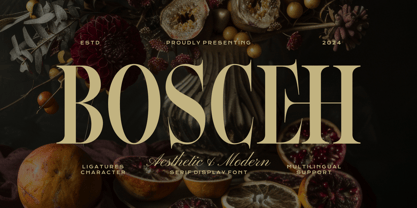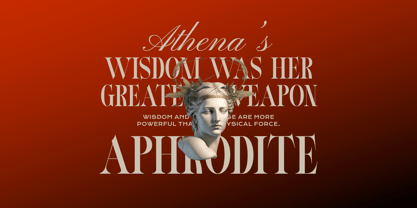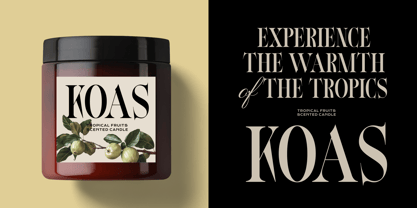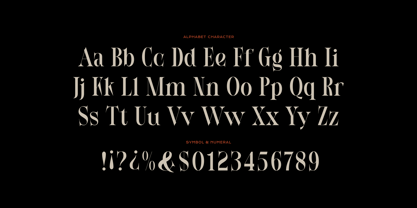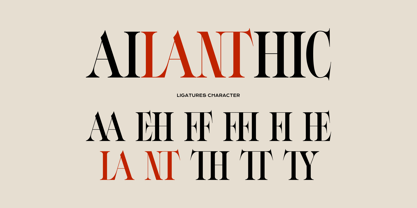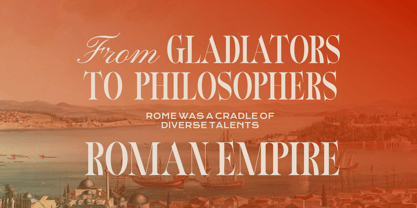
Bosceh
by Imoodev
The Bosceh Font Family was designed by Aulia Savira Putri and published by Imoodev. Bosceh contains 1 styles. More about this family
Bosceh is an aesthetic premium serif font characterized by sharp serifs with tapered ends, which lend a contemporary and luxurious feel. It features a significant contrast between the thick and thin parts of each letter, resulting in a classic and elegant appearance. This font is ideal for design projects that demand a touch of elegance and distinctiveness, such as corporate logos, editorial design, luxury branding, event invitations, headlines, logos, editorial use, or high-end packaging.
Designers: Aulia Savira Putri
Foundry: Imoodev